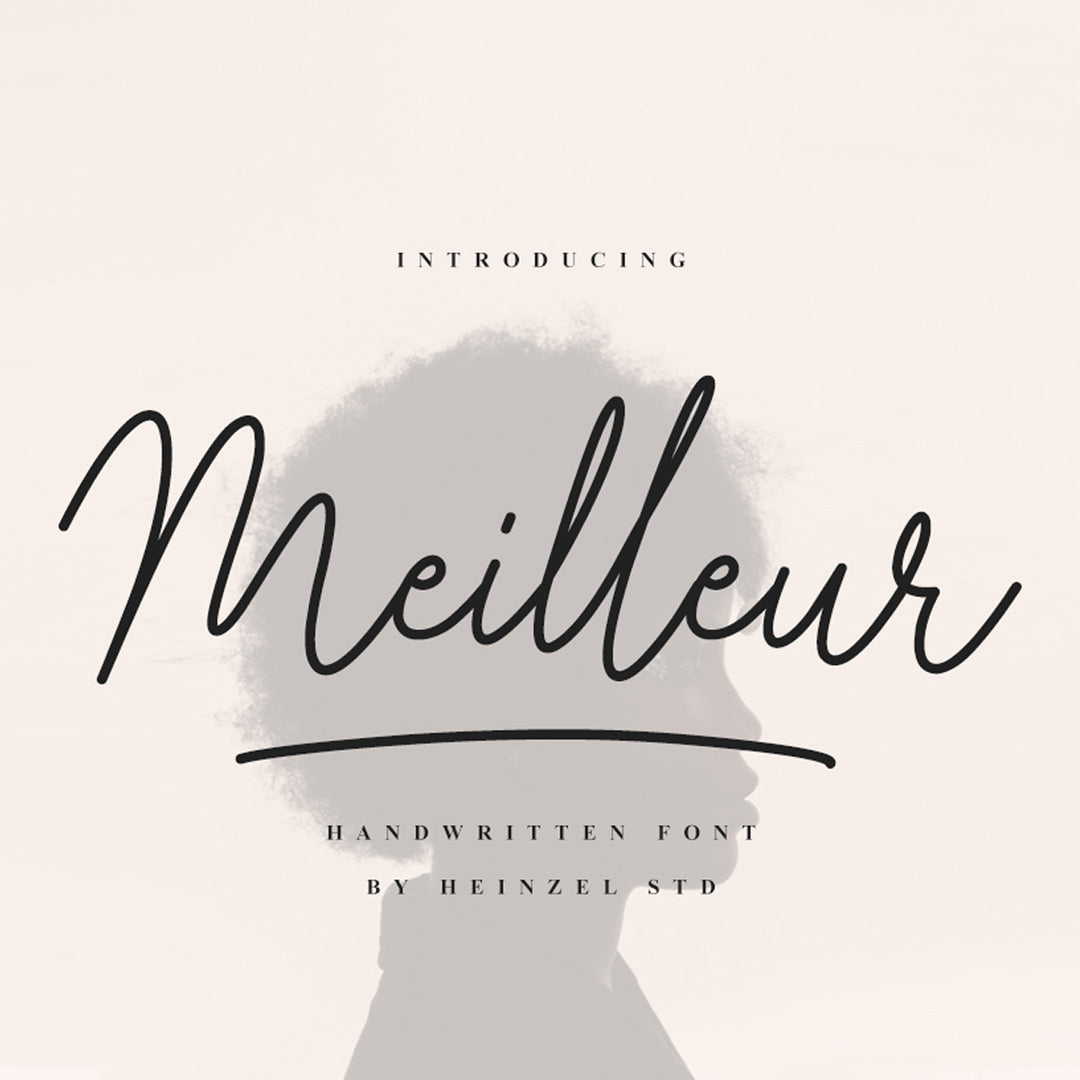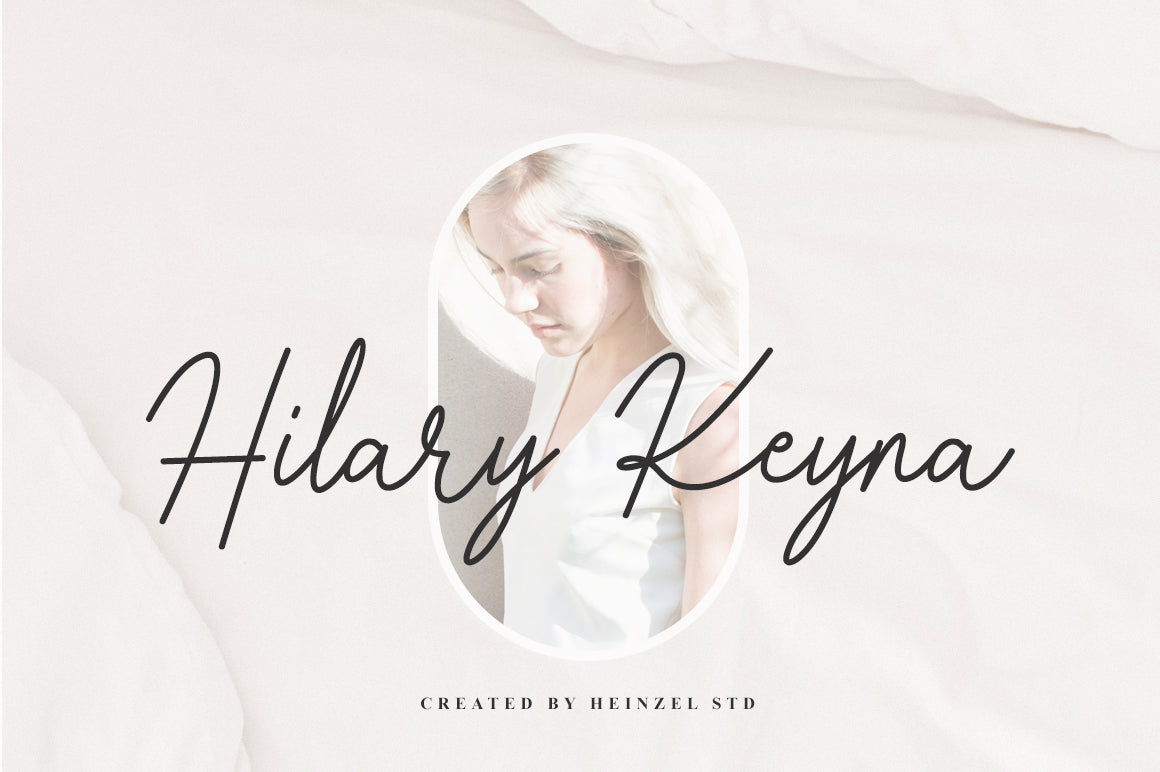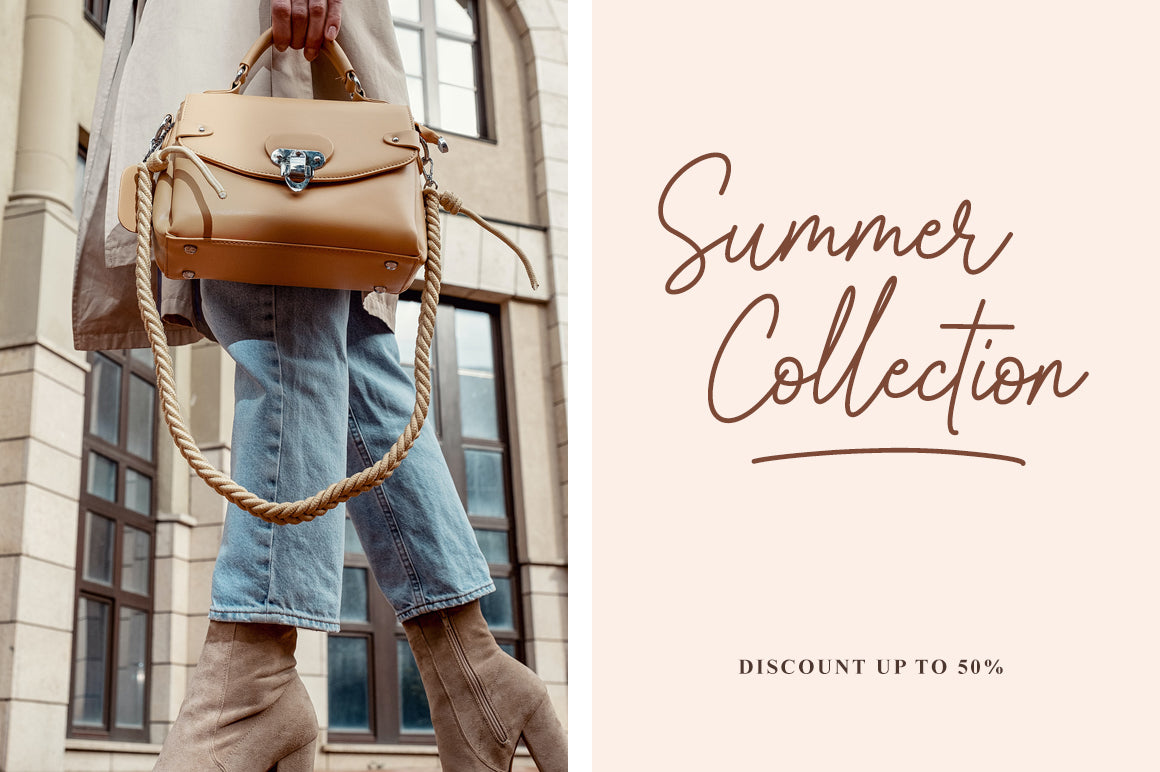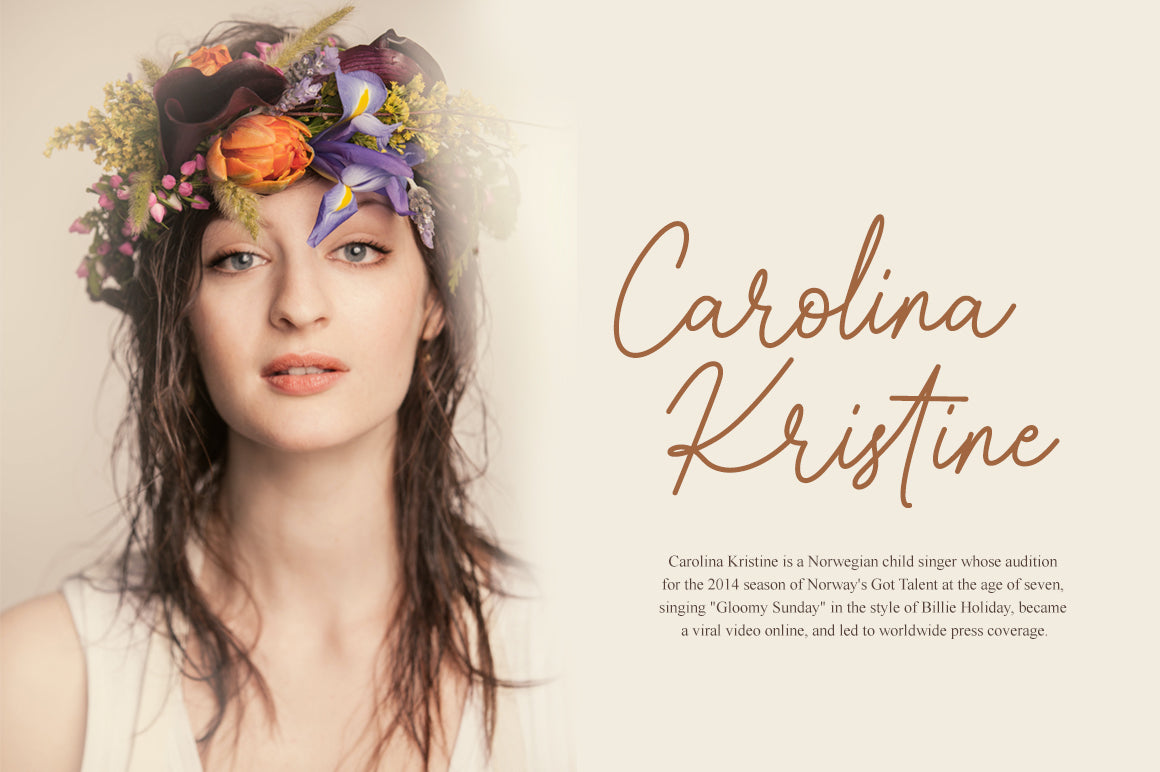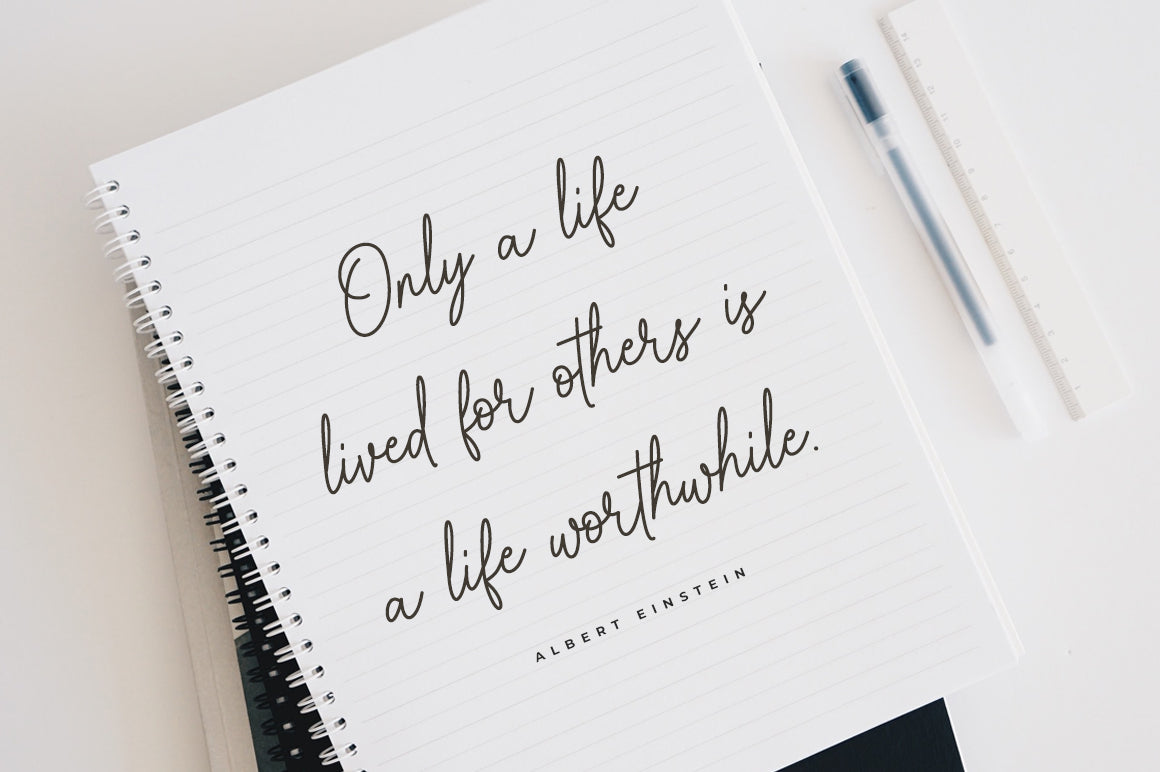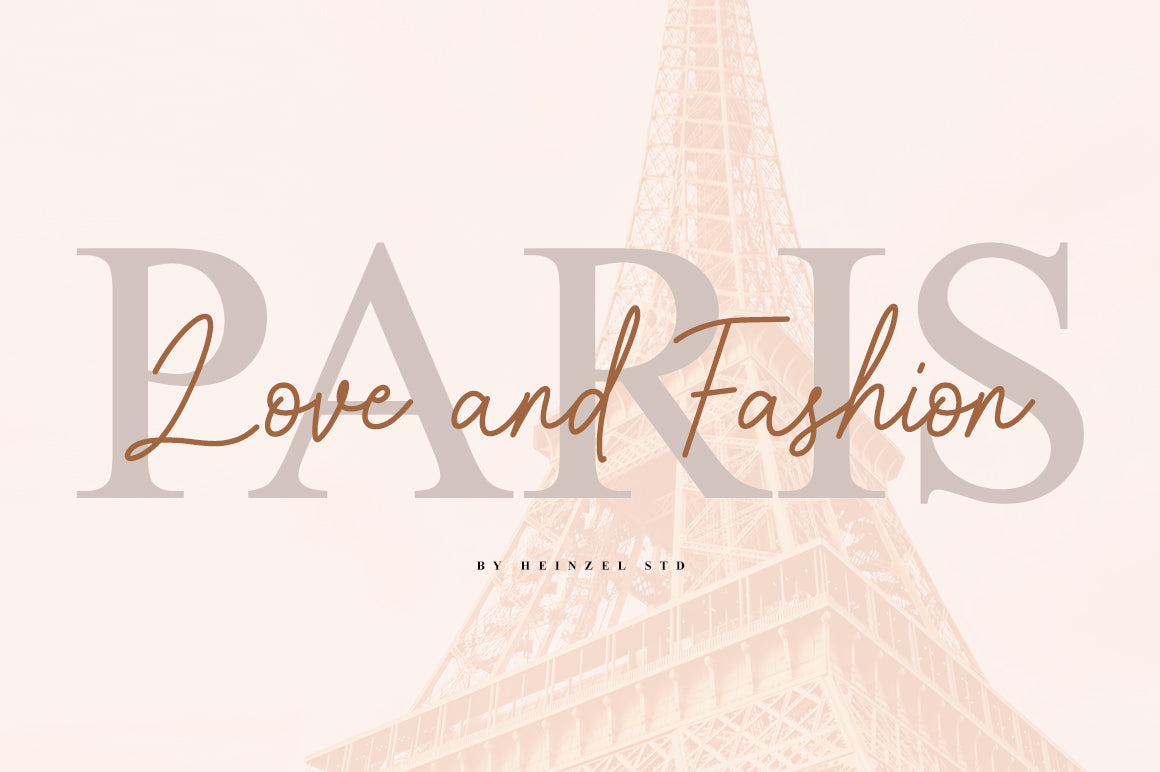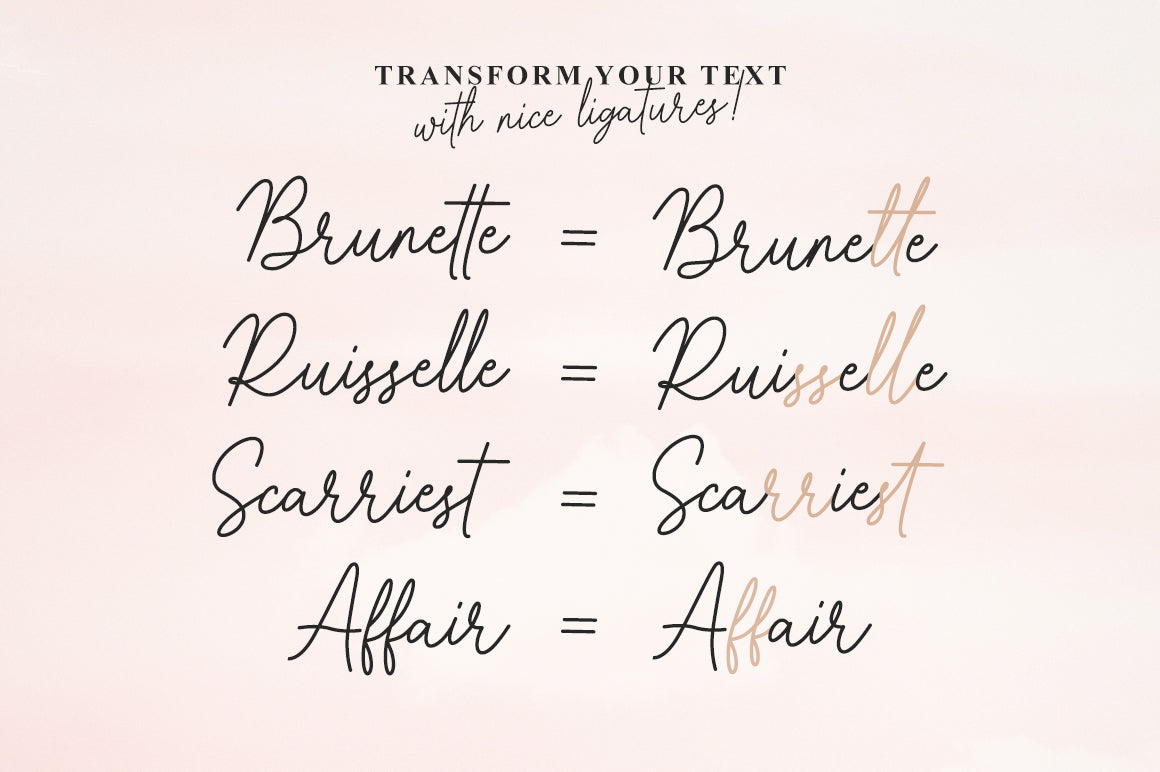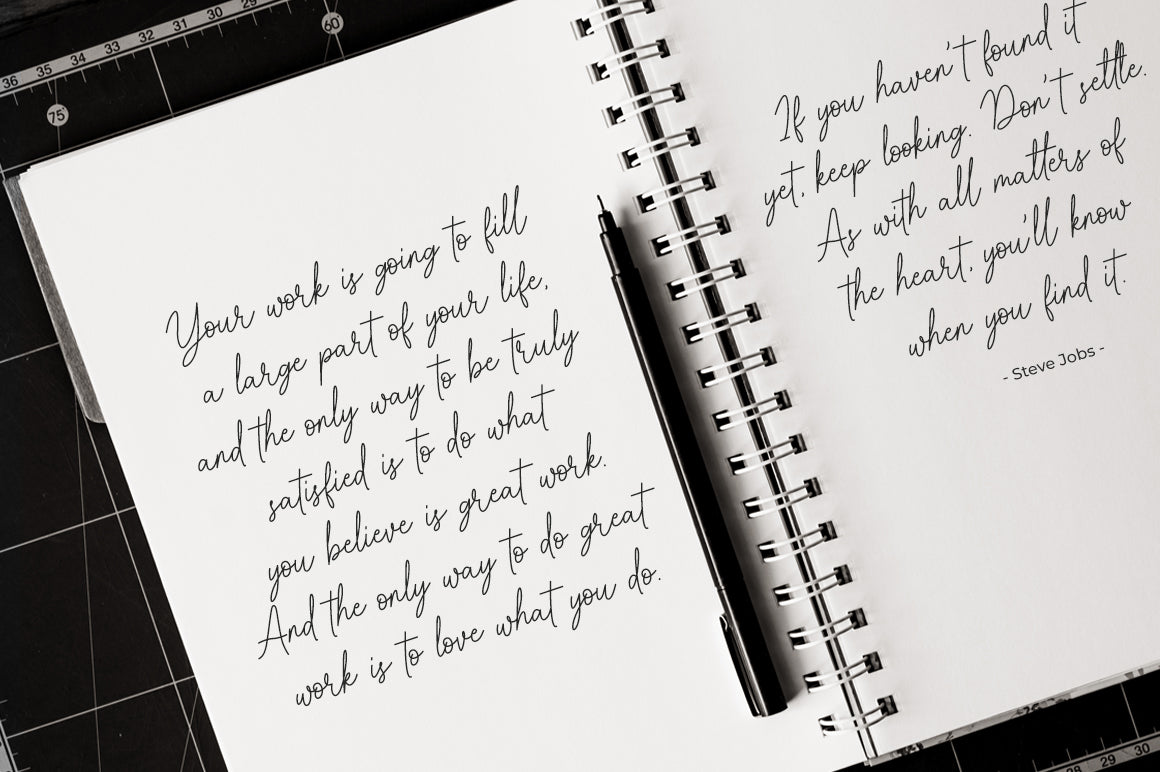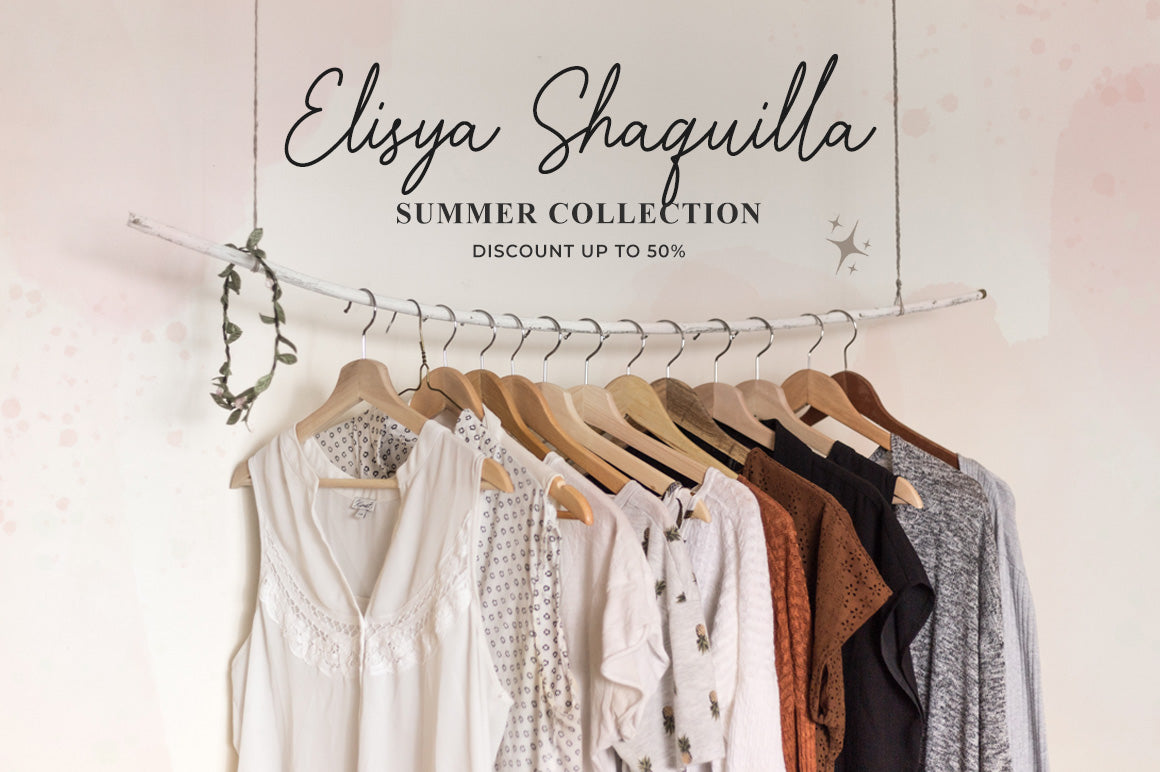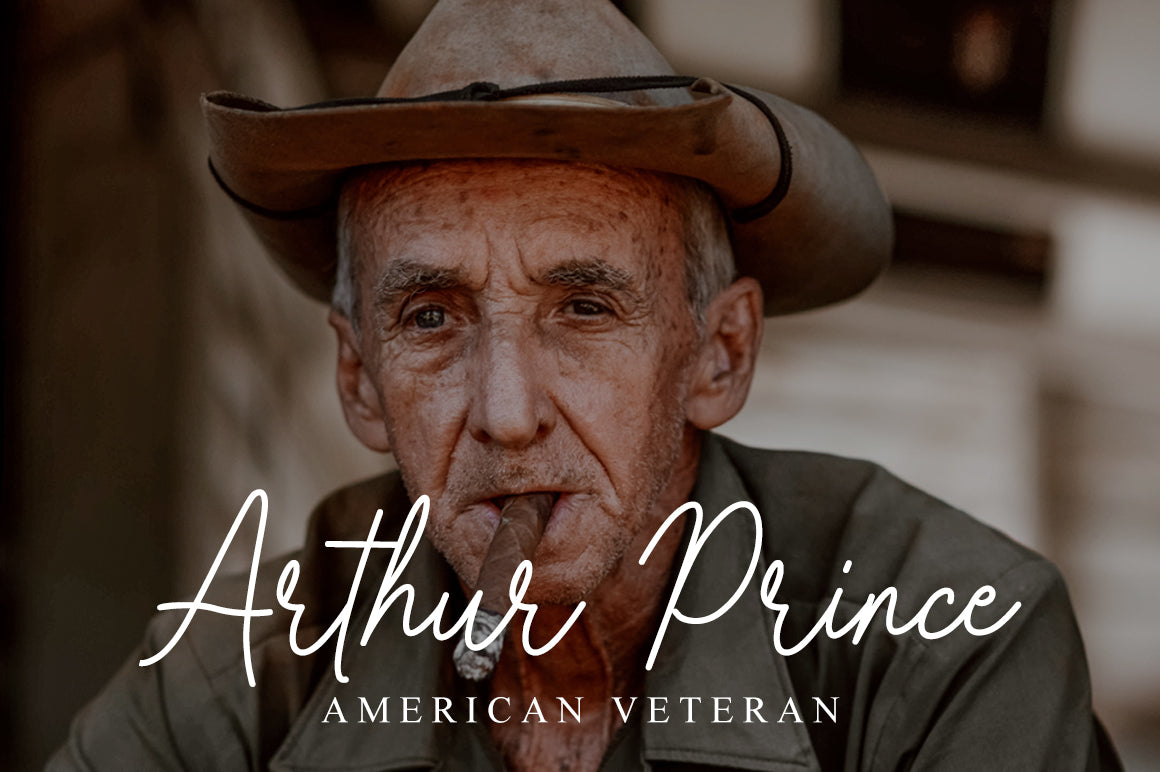
Meilleur Elegant Handwritten Font
Meilleur is an elegant handwritten script font designed to bring a personal, graceful, and sophisticated touch to your creative projects. Featuring smooth flowing strokes, natural letter connections, and a stylish handwritten character, Meilleur is perfect for designs that need a refined yet authentic feel.
Its expressive script style works beautifully for logos, branding, wedding invitations, stationery, social media graphics, quotes, packaging, greeting cards, posters, fashion branding, and signature-style designs.
Meilleur is especially suited for feminine, romantic, modern, and lifestyle projects. Whether you're creating a luxury logo, an elegant wedding invitation, or eye-catching social media artwork, this handwritten font adds a beautiful personal touch while maintaining a clean and stylish appearance.
Meilleur Font is a versatile choice for designers looking for an elegant handwritten script font with a sophisticated and contemporary personality.
Meilleur is a handwritten script font featuring smooth flowing strokes and natural letter connections. It includes a stylish, sophisticated character suited for feminine, romantic, and modern design styles.